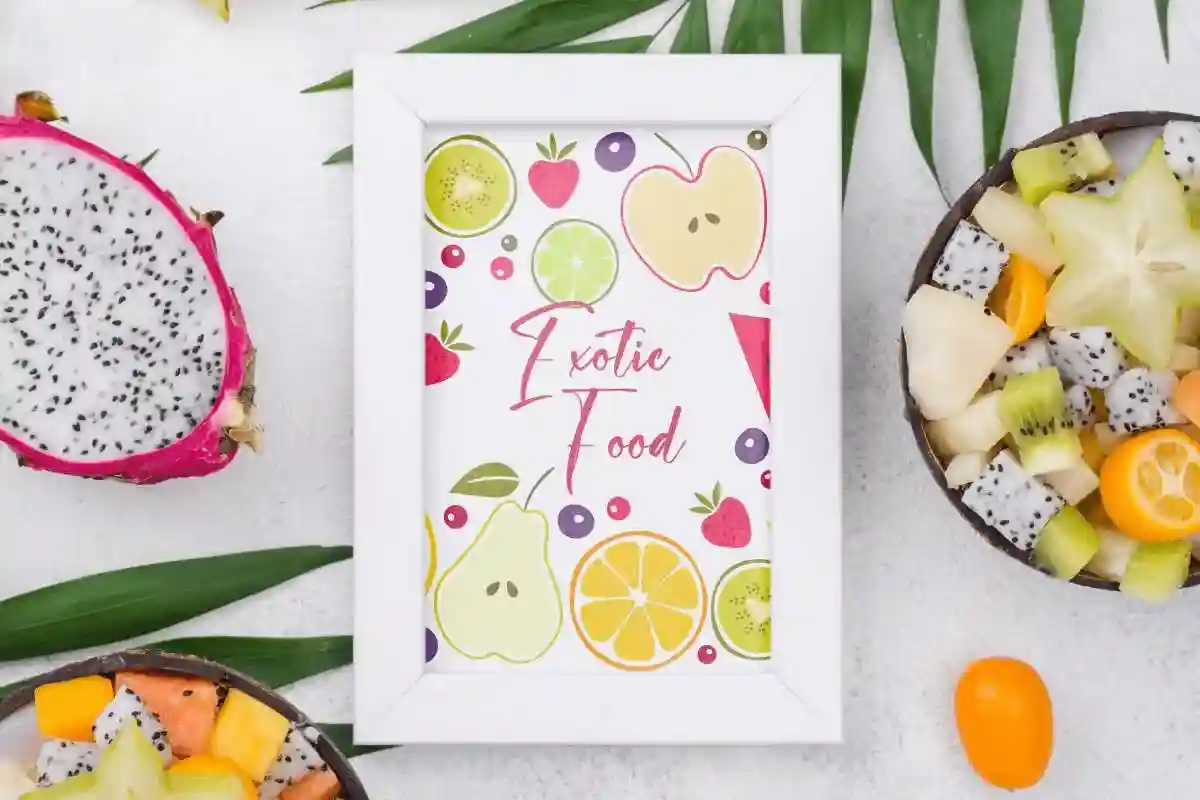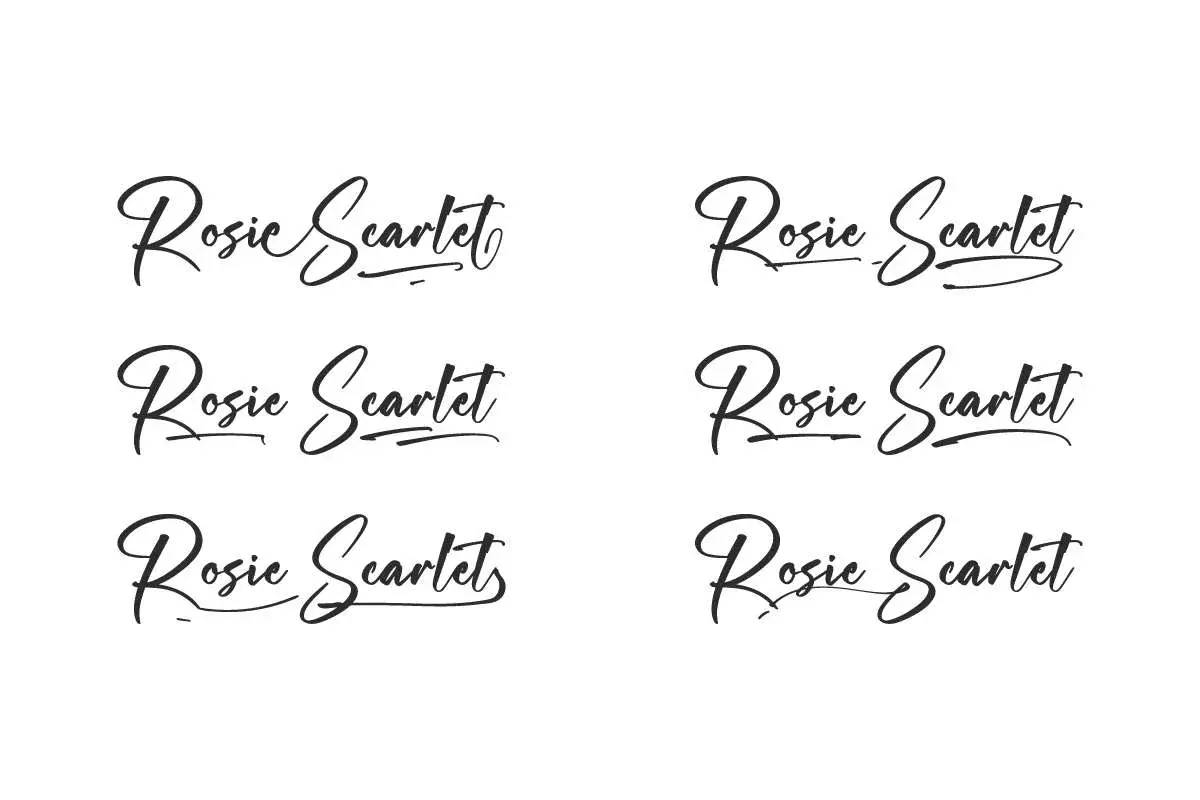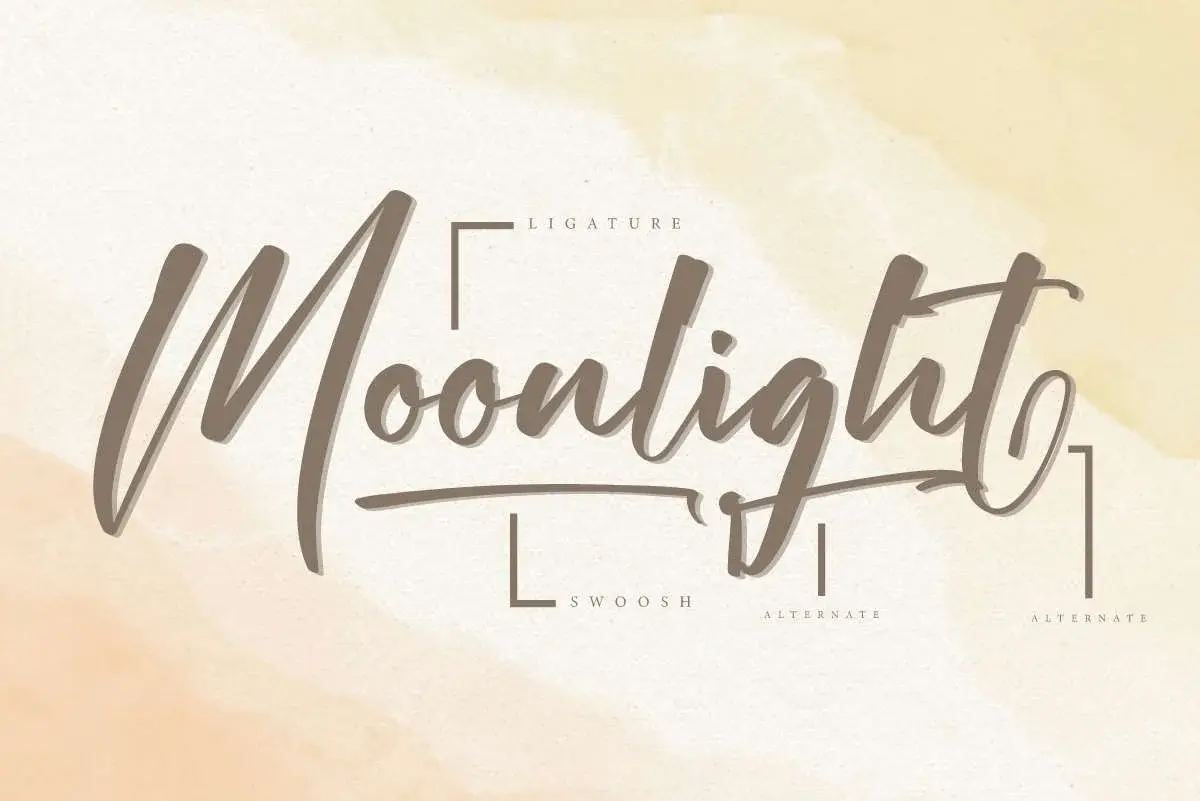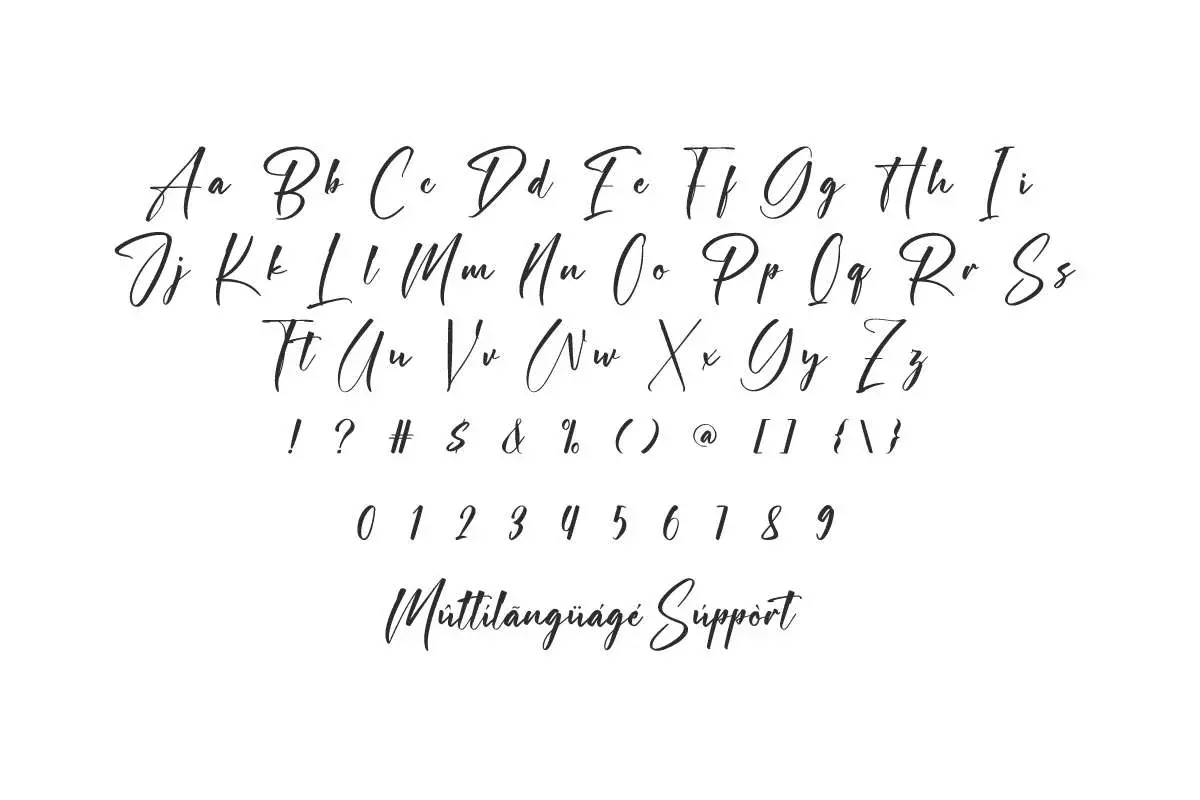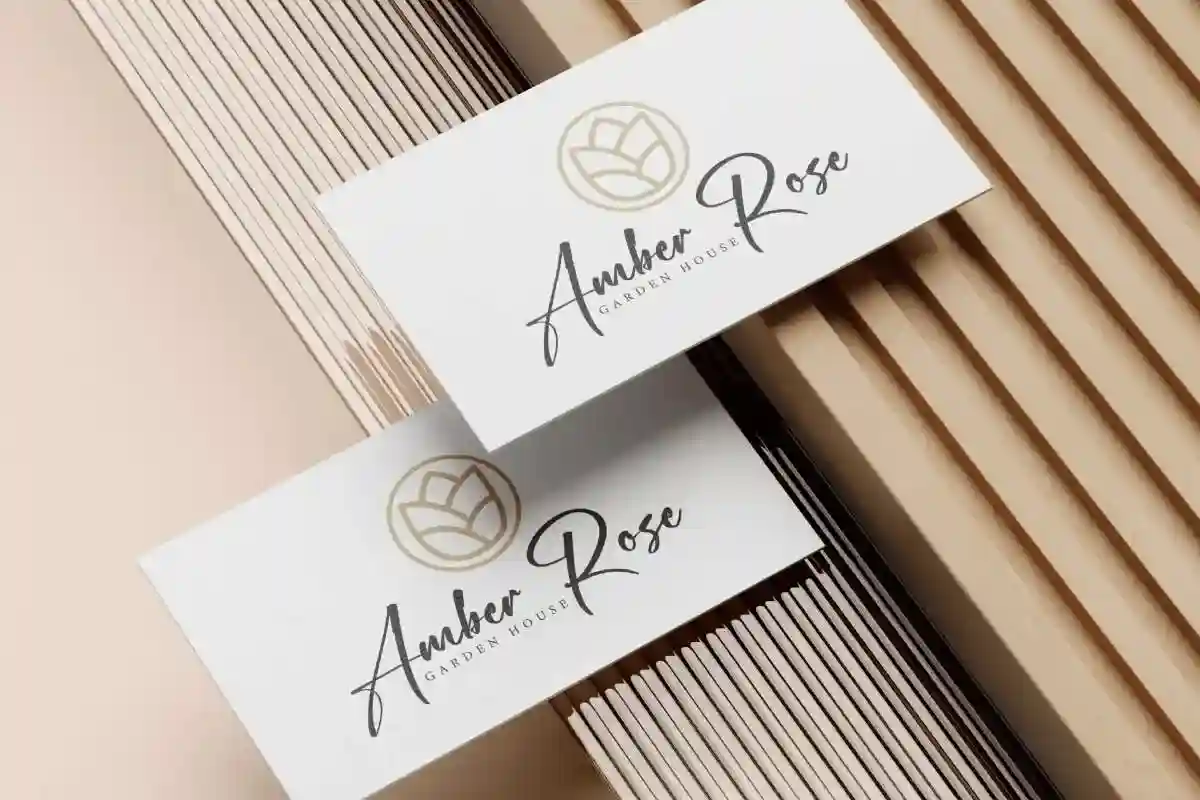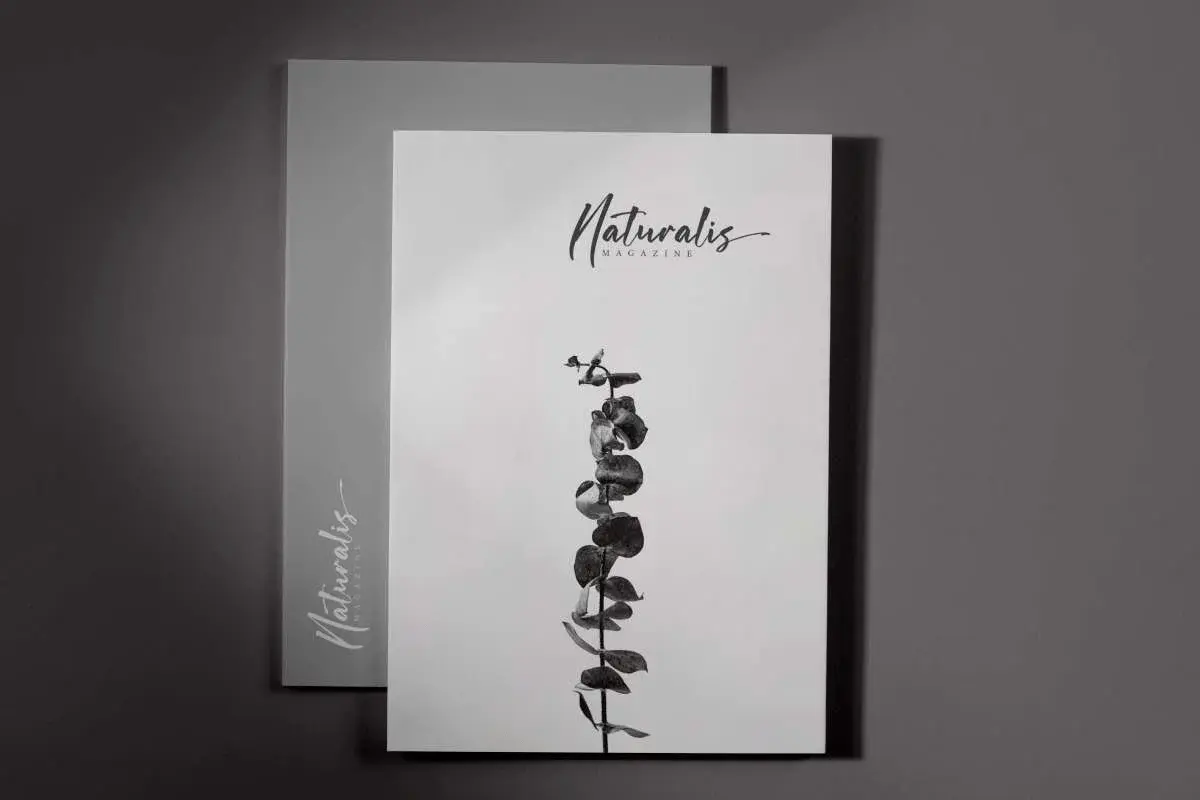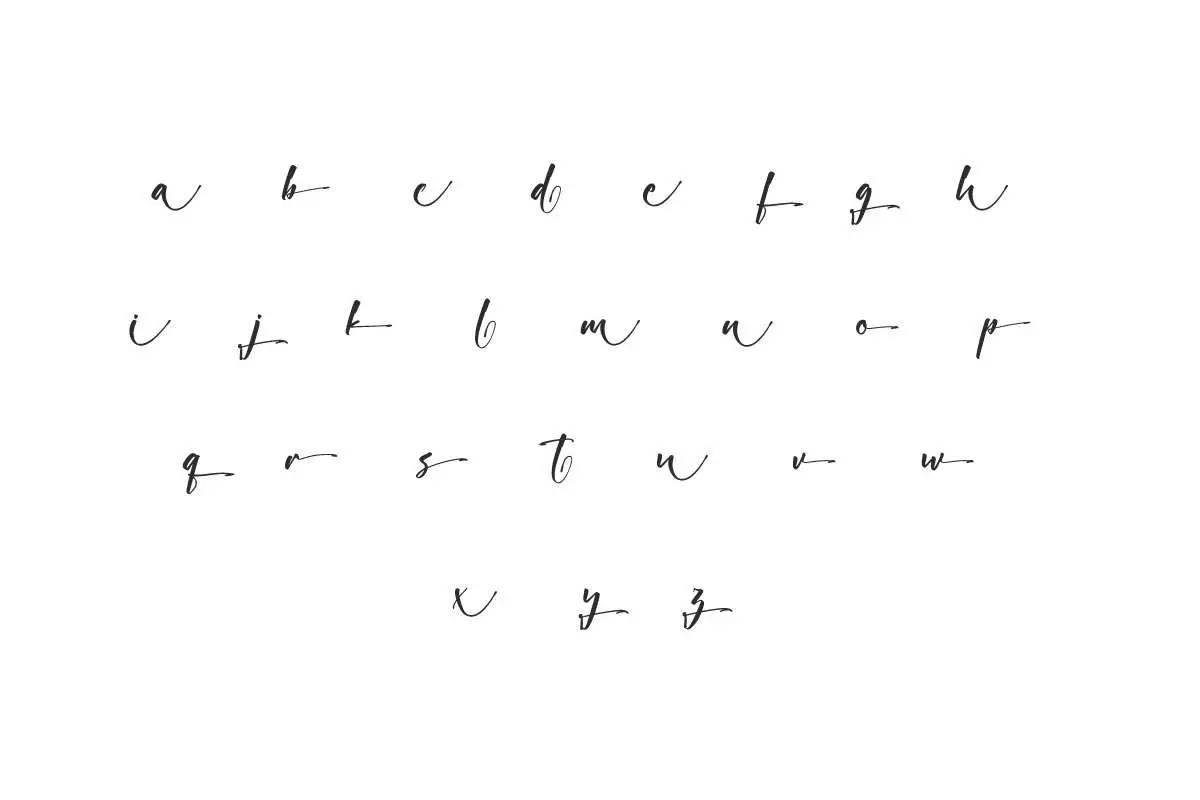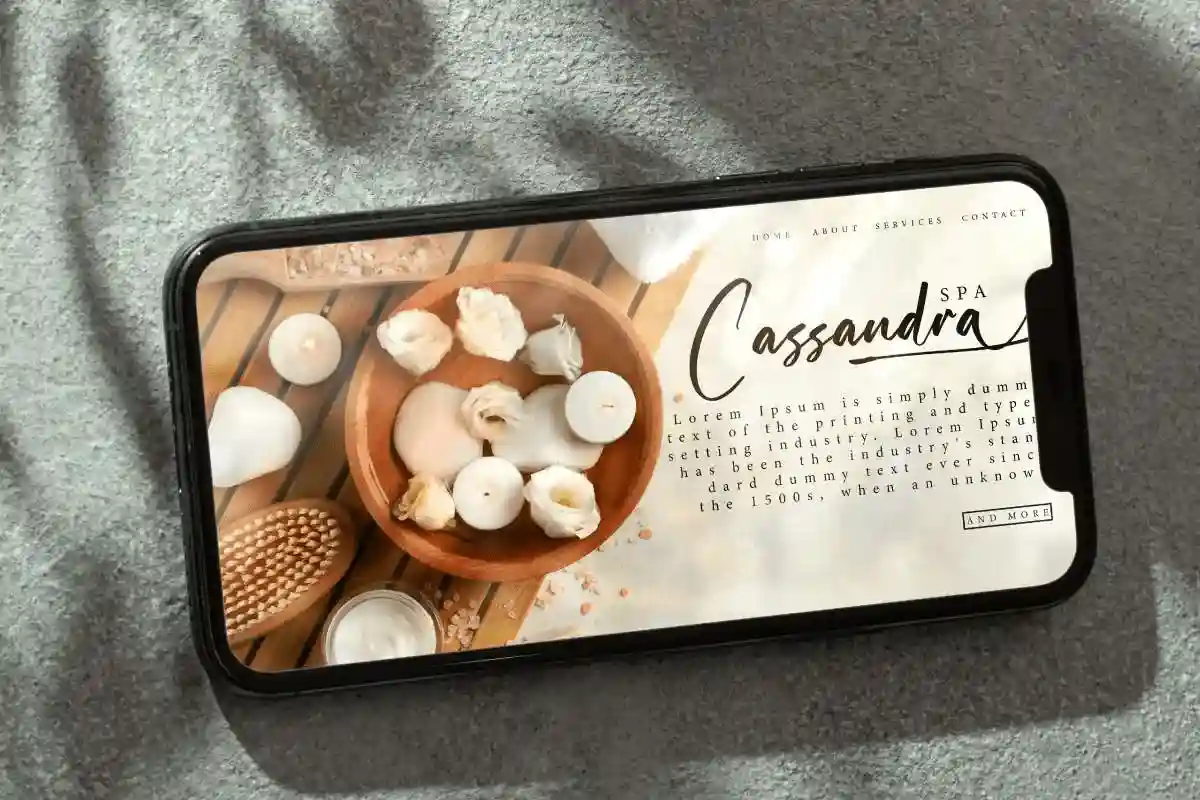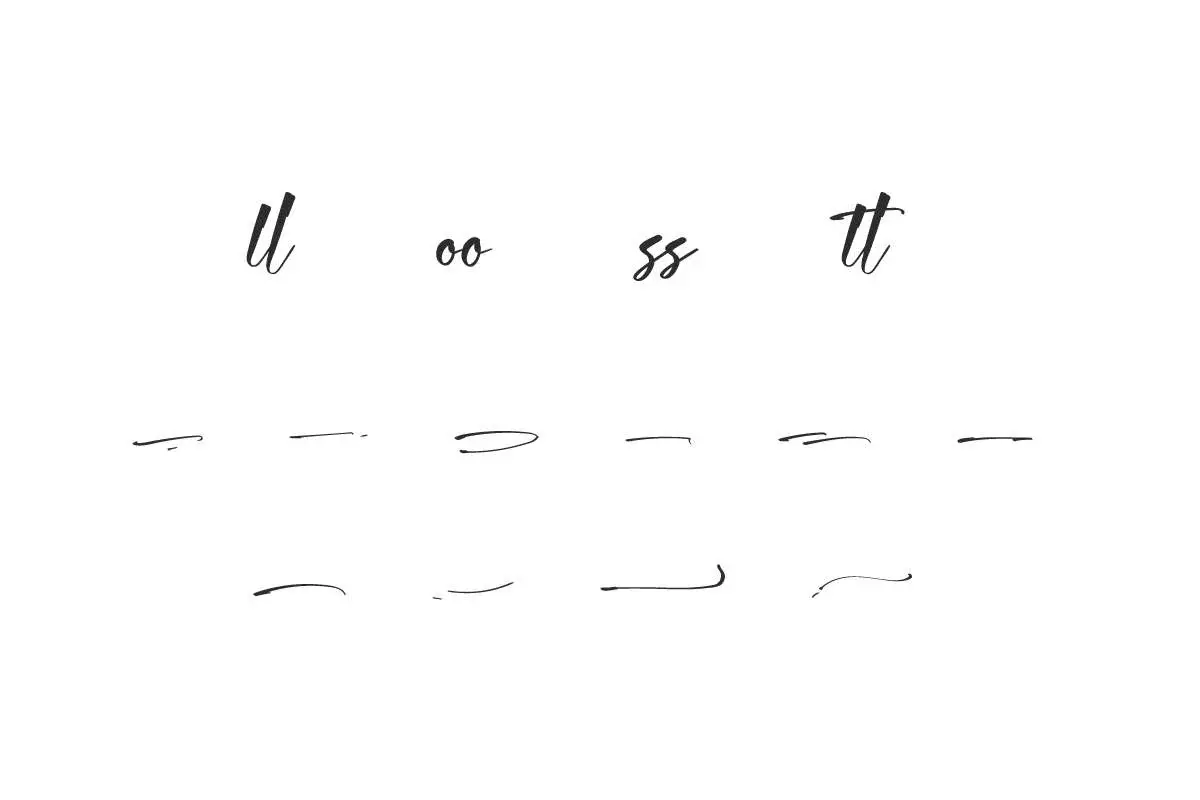
Rosie Scarlet Font is a distinctive beautiful script font with authentic look. This type of font would be perfect for anything like brand logo, salon, website, etc.
Rosie Scarlet Font is Calligraphy a distinctive classic script font that will exude elegance. When examined carefully, it combines two looks, vintage and modern, which makes it have its own charm so that it will add to the beauty of your design, such as brand logo, business card, cover, poster, quote, stationery, title, website, and much more!
Rosie Scarlet Font comes with a full set of Uppercase and Lowercase Basic Characters, Number, Punctuation, Symbol. This font also features alternate, ligature and swoosh characters to add aesthetic value to the font. Use this for your business industry such as clothing brand, florist, furniture, photography, printing, publishing, restaurant, retail store, salon & spa, wedding, etc.